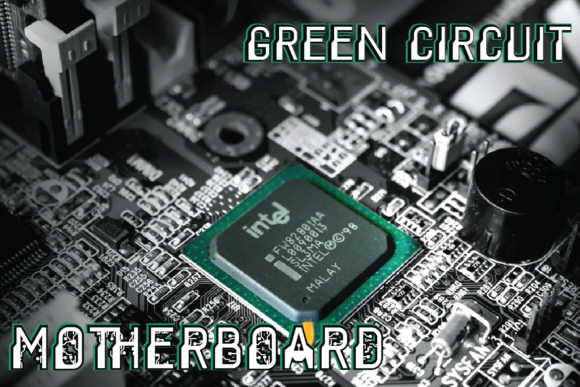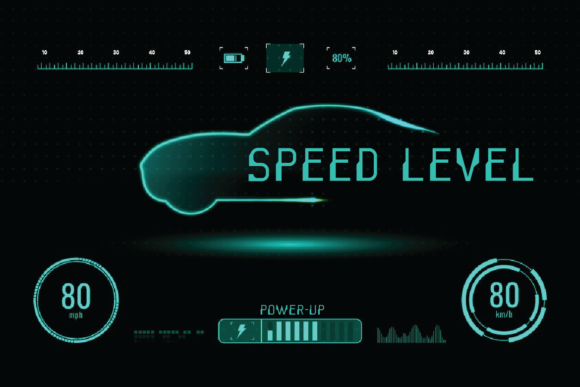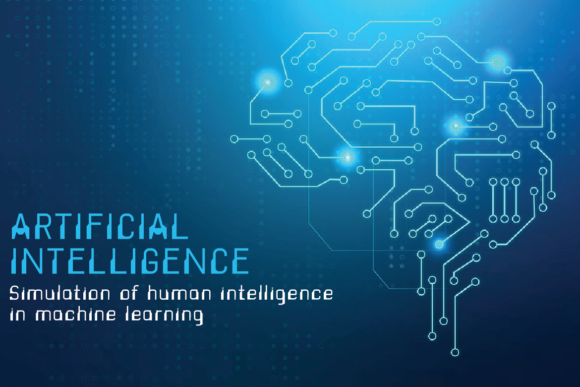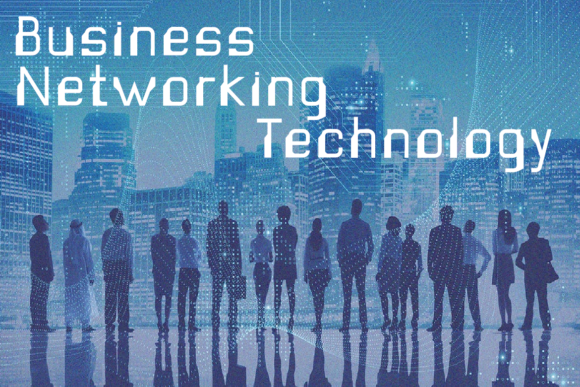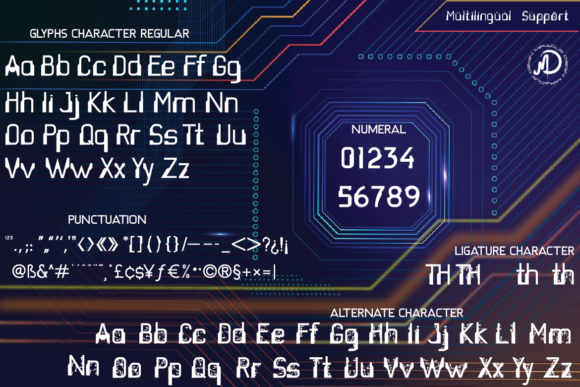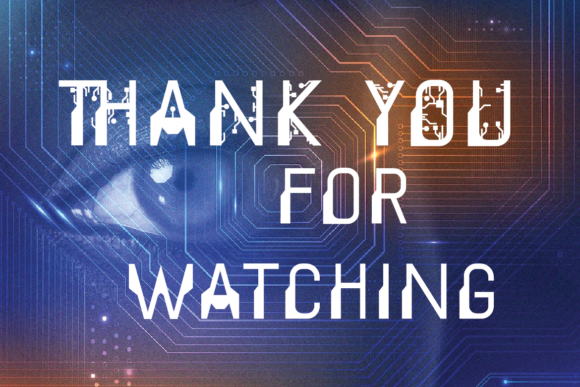
The Ectron Font: A Robotic Marvel for Your Creative Projects
An Honest Review of Ectron Font
What I Love About Ectron Font
- ✨ Unique and Robotic Design: Ectron’s futuristic look is perfect for projects that require a bit of an edge.
- ✅ Versatility: Whether you’re working on digital designs, presentations, greeting cards, or crafting projects, Ectron font fits right in.
- 💻 Easy to Read: Despite its robotic appearance, Ectron is surprisingly easy to read, even at smaller font sizes.
- 🎨 Highly Customizable: With a range of OpenType features and glyphs, you can easily customize Ectron to fit your project’s needs.
While Ectron is an amazing font, there are a few things to keep in mind:
- 🤔 Limited Use in Serif Contexts: Ectron is a display font, so it’s best used in headlines or titles rather than body text.
- ⚠️ Some Characters May Not Display Correctly: As with any font, make sure to test Ectron with your specific language and character set to ensure compatibility.
The Designer Inspiration Behind Ectron
Ectron was designed by a team of creatives who wanted to create a font that embodied the spirit of innovation and technology. Inspired by classic sci-fi movies and futuristic architecture, Ectron is the perfect blend of form and function.
Q: What type of projects is Ectron best suited for?
A: Ectron is perfect for projects that require a bold, futuristic look, such as digital designs, presentations, greeting cards, and crafting projects.
Q: Is Ectron a difficult font to read?
A: Despite its robotic appearance, Ectron is surprisingly easy to read, even at smaller font sizes. However, it’s still a display font, so it’s best used in headlines or titles rather than body text.